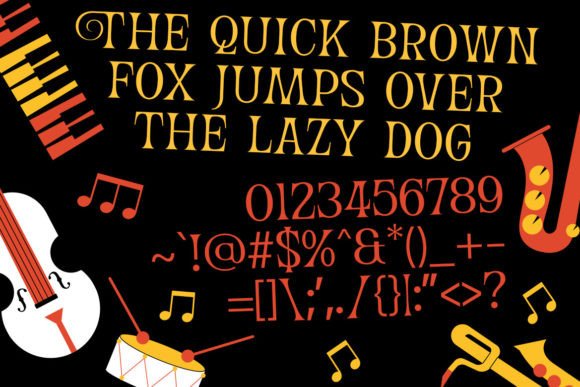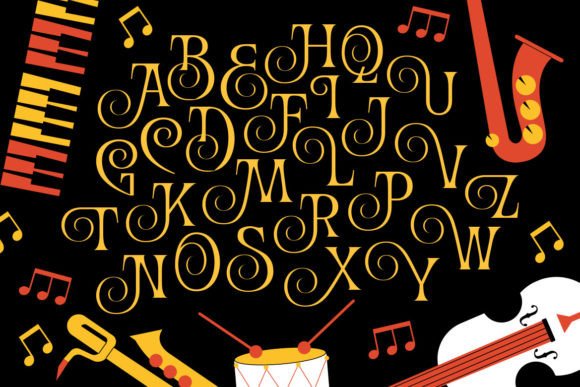
Get Ready to Groove with the Baby Jazz Font
Do you remember the thrill of browsing through your favorite music store, discovering new bands and albums, and being swept away by the vibrant colors and typography of the posters and flyers? For many of us, those moments sparked a lifelong passion for music and creativity. The visuals of music poster events and festivals from the 80s and 70s era continue to inspire designers today, and that’s exactly what the Baby Jazz Font aims to capture.
This font is designed to evoke the carefree spirit of those bygone eras, with its playful and energetic vibe perfectly suited for a wide range of creative projects. Whether you’re designing posters, band merchandise, or album artwork, the Baby Jazz Font is an invaluable tool for any designer looking to add a touch of nostalgia and whimsy to their work.
Baby Jazz Font Key Features
- Font Family: Baby Jazz
- Unique Characteristics: Hand-drawn, cursive, and whimsical design with a touch of elegance and sophistication
Designer Review: Baby Jazz Font
Overall, I think the Baby Jazz Font is a cute and playful choice for casual projects. ✨ The font’s rounded edges and soft lines give it a charming, childlike feel that’s perfect for titles, headings, and other display text.
One of the things that works well about the Baby Jazz Font is its flexibility. ✨ It comes in a range of weights, from light to bold, which makes it easy to use in a variety of contexts. The font also has a clear and legible design, making it suitable for body text as well as display text.
- ⚠️ Limited use in formal or professional contexts: The Baby Jazz Font’s playful design may not be suitable for formal or professional projects, such as business reports or academic papers.
- ⚠️ Not ideal for small text: While the Baby Jazz Font is clear and legible, it may not be the best choice for small text, such as captions or footnotes, where the rounded edges and soft lines can make the text harder to read.
Overall, I think the Baby Jazz Font is a fun and versatile choice for designers who want to add a playful touch to their projects. However, it’s not a good fit for every project, and designers should carefully consider the context and purpose of their design before using this font.
Baby Jazz Font is perfect for:
- Adding a playful touch to children’s party invitations or decorations.
- Creating a whimsical atmosphere for a coffee shop or bakery.
- Designing a fun and lively logo for a kids’ brand or product.